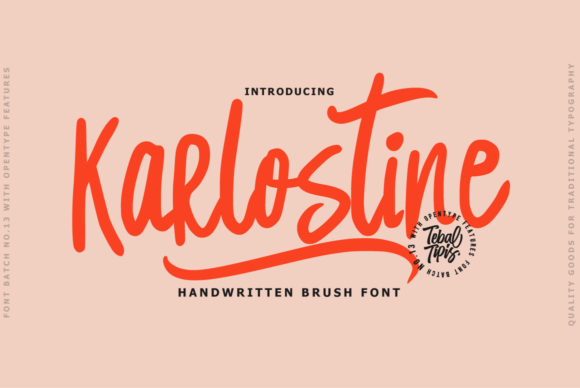
Step into the realm of visual charm with Karlostine Font, an exquisite creation by the visionary Tebaltipis.std. This remarkable script font weaves elegance and personality into a single captivating package, flowing effortlessly like a river of ink across the digital canvas.
With Karlostine, your creative expressions take center stage. This font's captivating design exudes a synergy of sophistication and playfulness, gracefully adorning invitations, greeting cards, logos, and more with an indelible personal touch. Watch as your heartfelt messages come alive with the allure of a handwritten script, leaving a lasting impression on the hearts and minds of all who encounter them.
Unleash the power of Karlostine to elevate your digital presence, creating impressions that resonate. Enchant your audience with the timeless allure of handwritten elegance, giving life to your creative visions with an air of classic charm and modern flair. Discover the endless possibilities that await as you weave your words into existence, crafting messages that captivate and inspire.
Embrace the beauty of customization with Karlostine. This versatile font bends to your creative will, adapting seamlessly to a myriad of design aesthetics. From the rustic allure of a wedding invitation to the vibrant energy of a political poster, Karlostine becomes a chameleon of style, effortlessly reflecting the essence of your vision.
Join the ranks of discerning designers who recognize the magic of Karlostine. Let your creativity flourish as you explore the boundless possibilities this font offers, transforming ordinary text into captivating expressions of art. Whether you're a seasoned design professional or just beginning your creative journey, Karlostine is the essential companion for those who seek to make a lasting impact through the power of words.